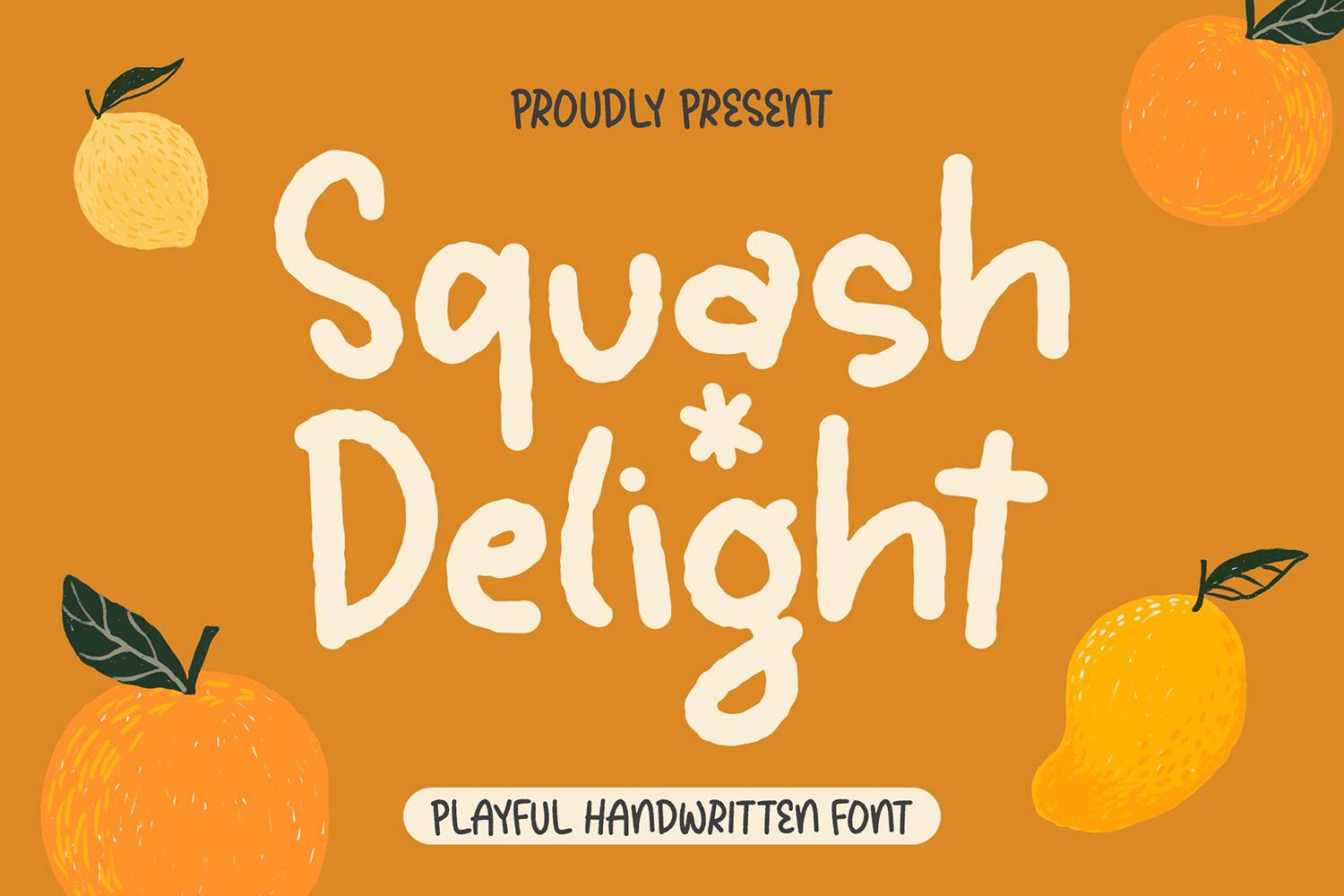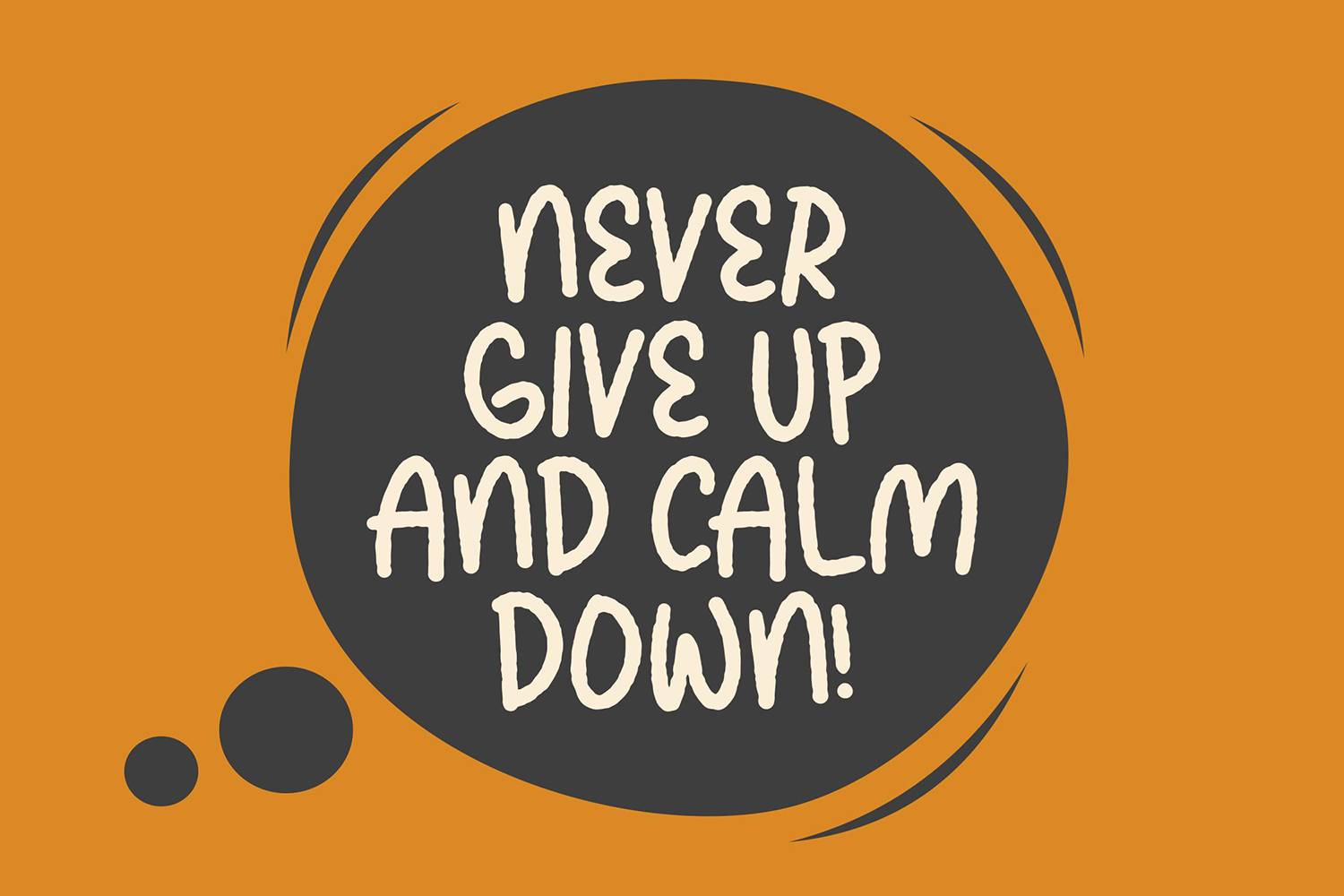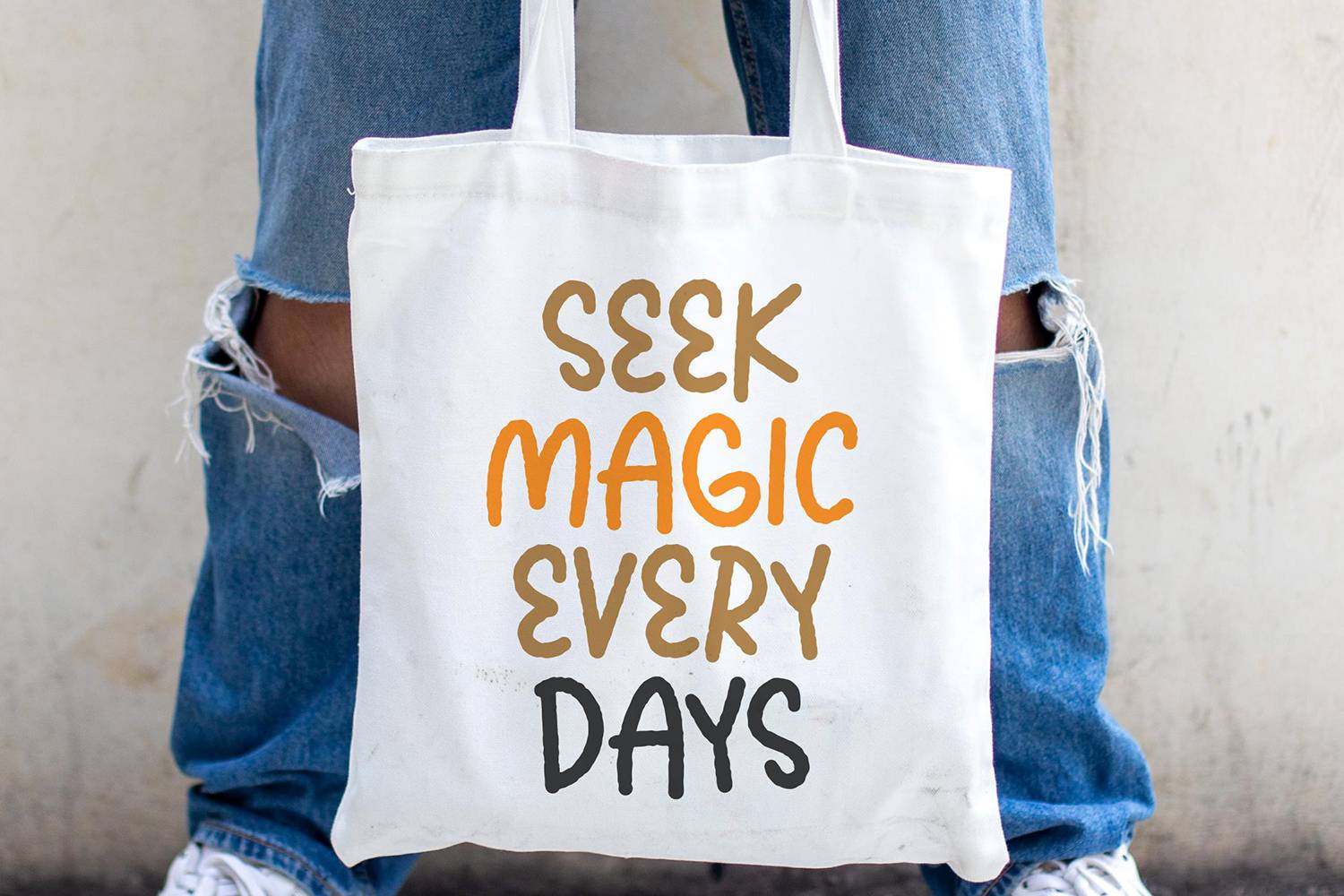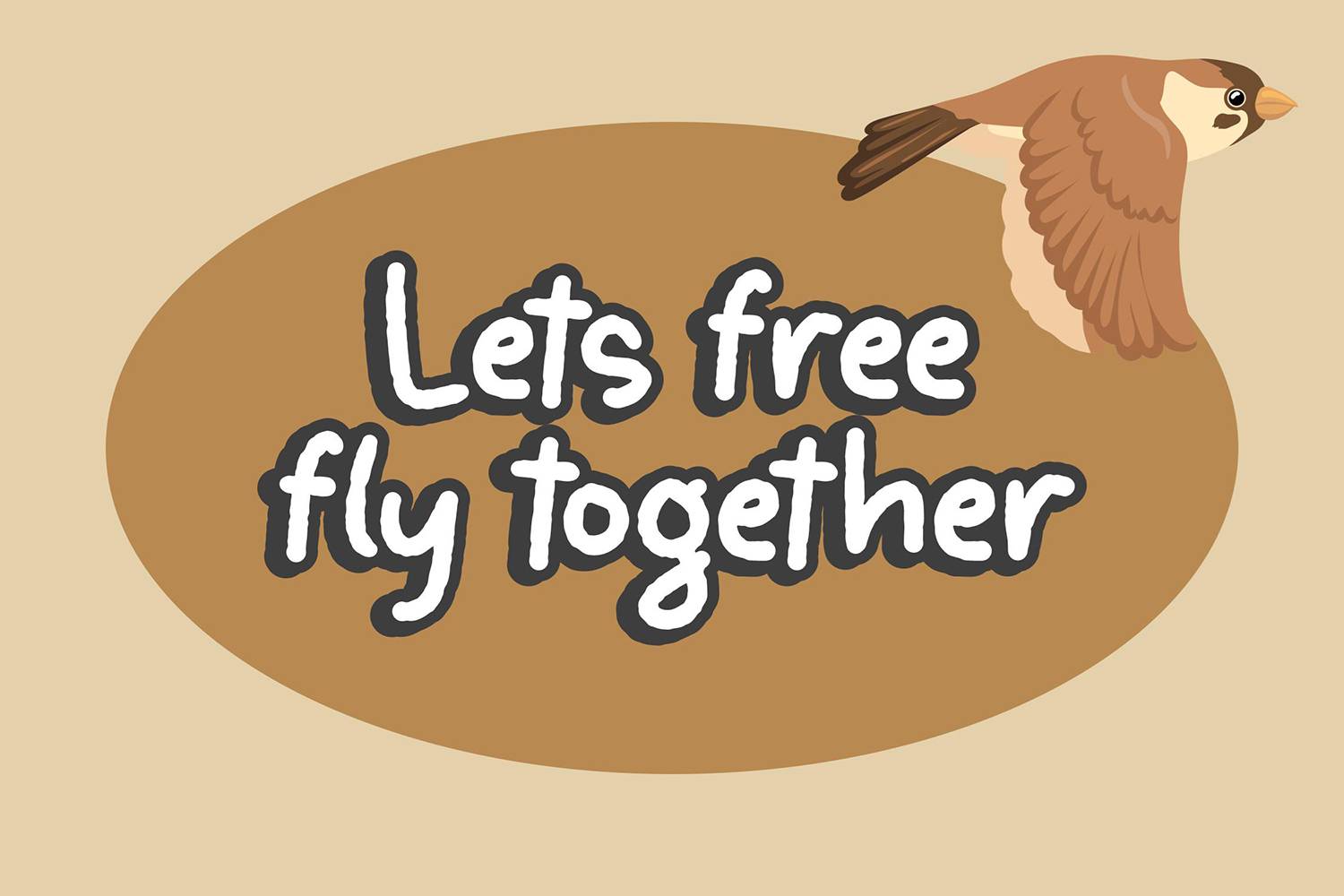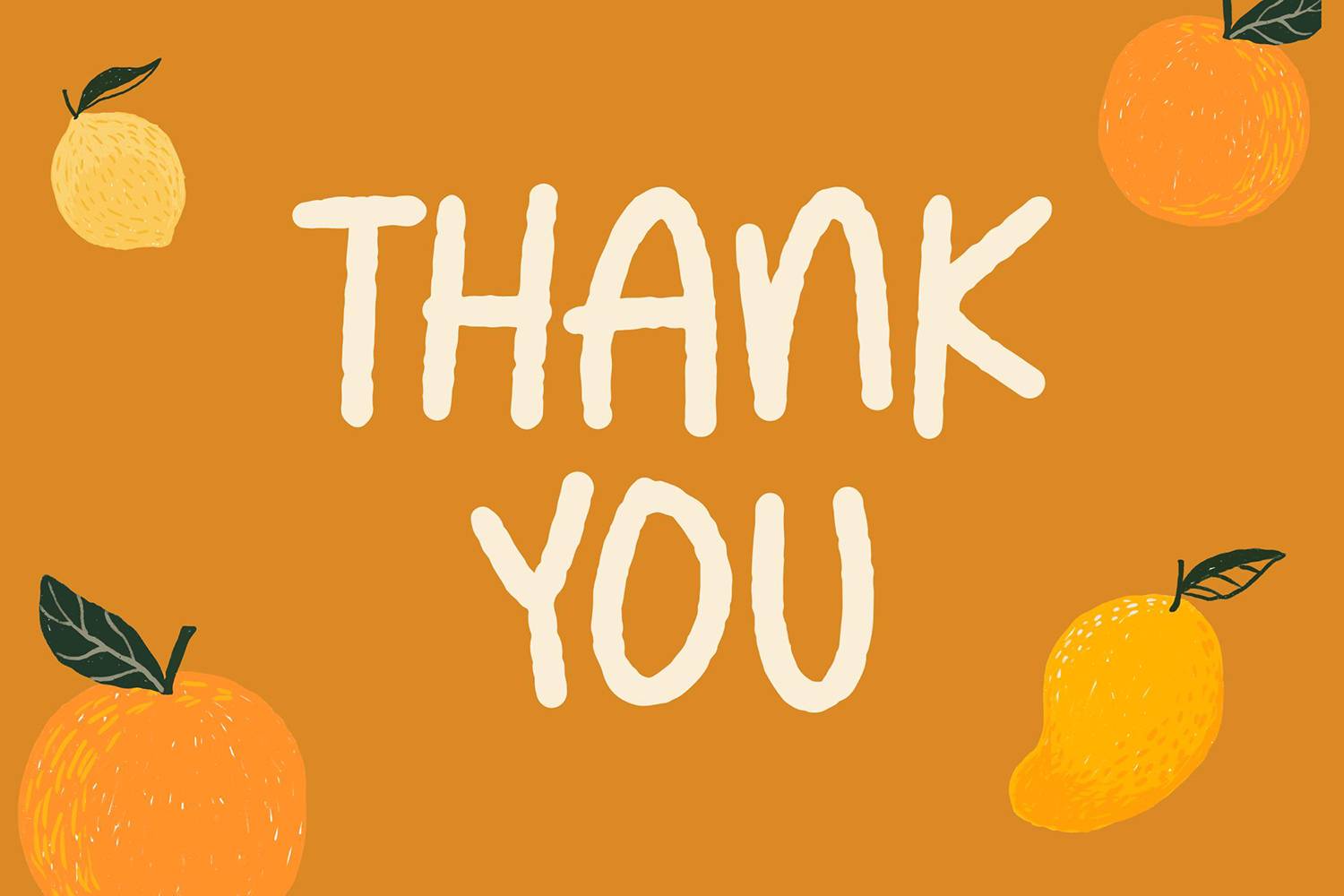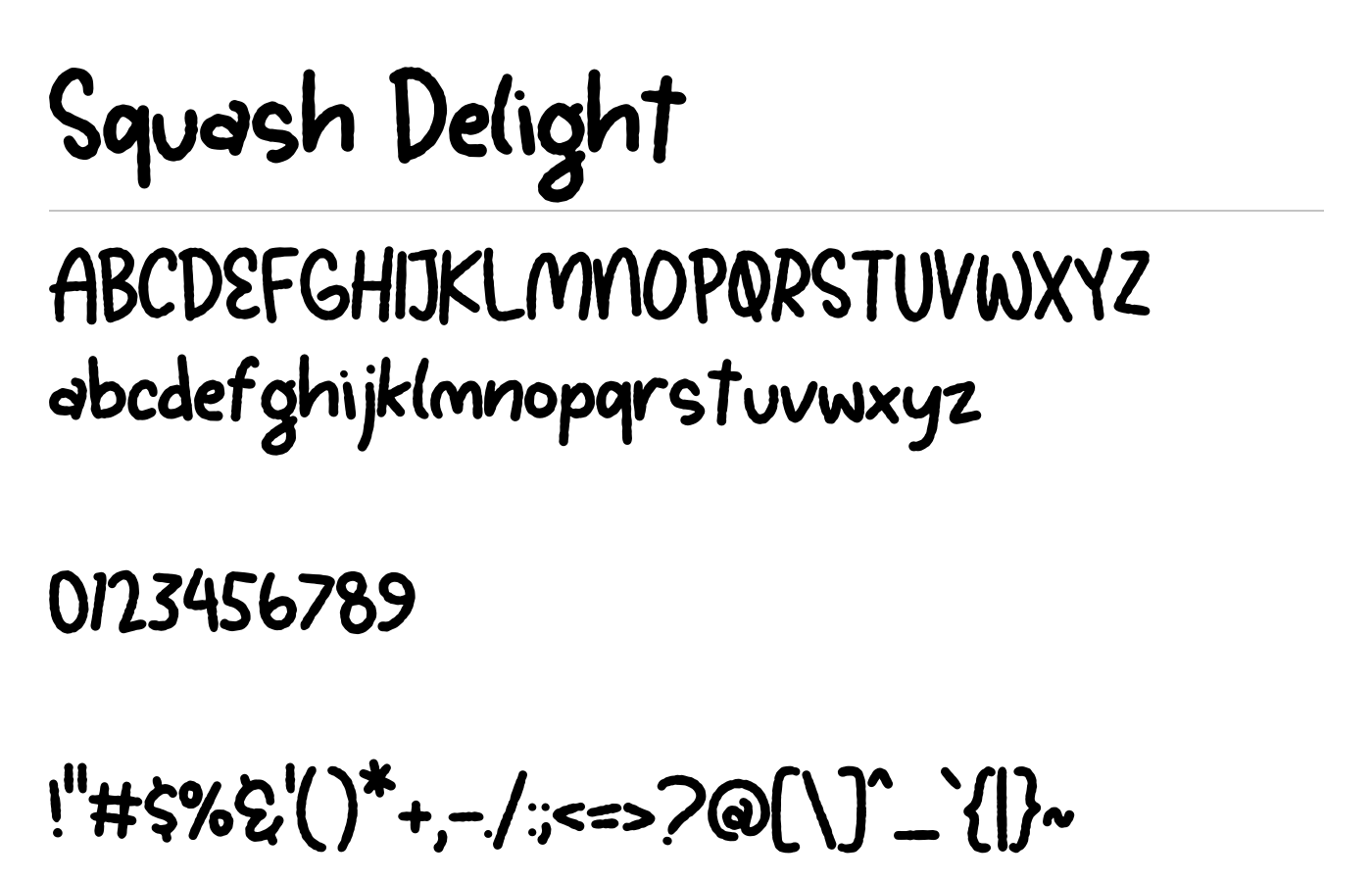
Squash Delight is a casual, hand-drawn sans serif font with a warm and playful character. Its irregular, slightly bold strokes and lively letterforms give it an inviting, informal feel that works great for creative projects, children’s materials, and lighthearted branding. This font is perfect for adding personality and a friendly tone to logos, posters, and social media graphics.
Squash Delight Font
About Squash Delight Font